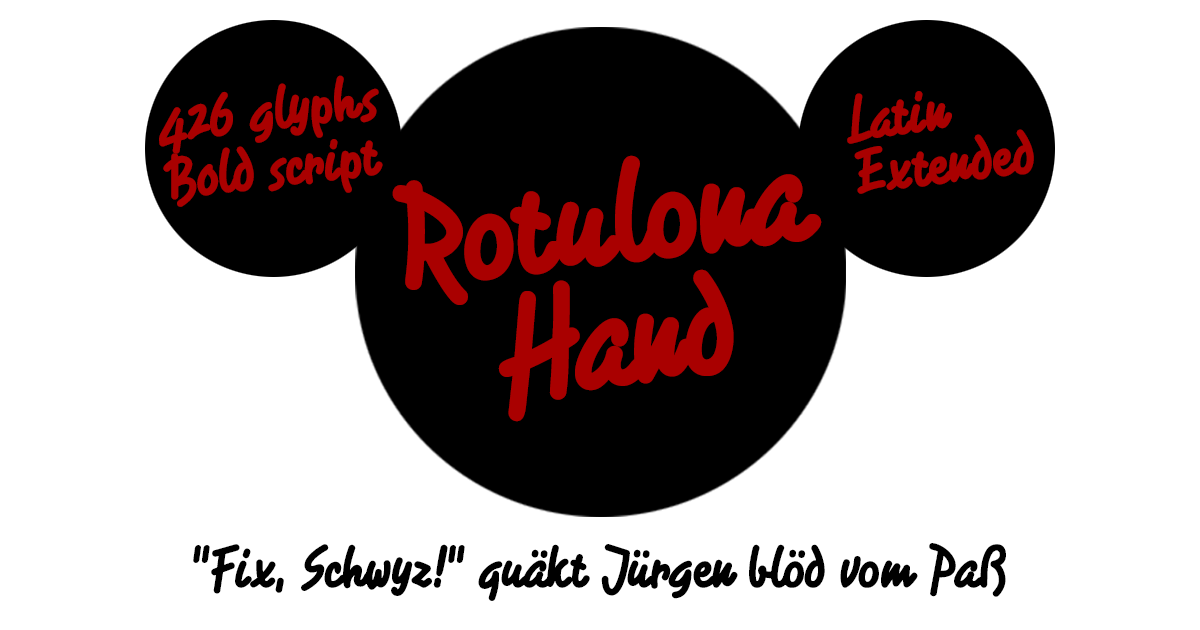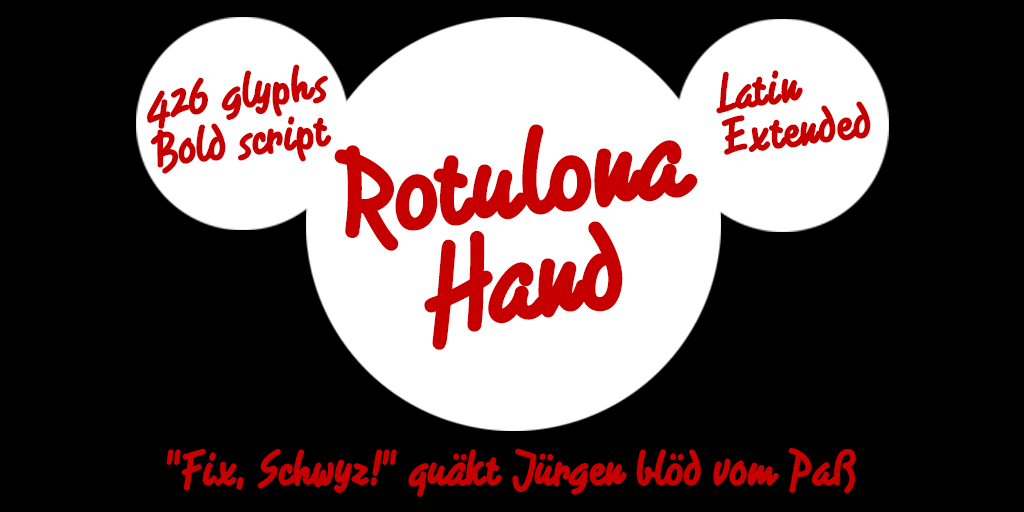
Rotulona Hand Font
About Rotulona Hand Font
Rotulona Hand is a thick handwritten font made with a fat spherical tip pen. It has a cheerful and carefree look that is perfect for graphic design and advertising.